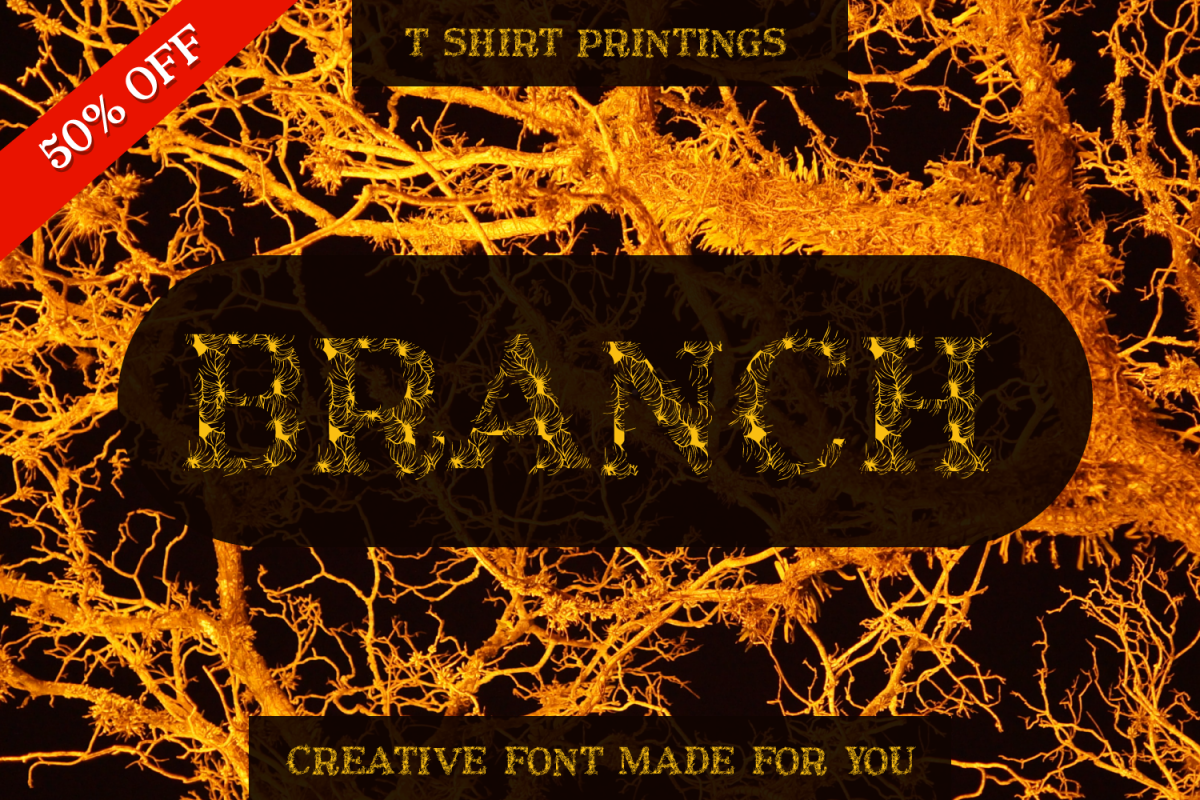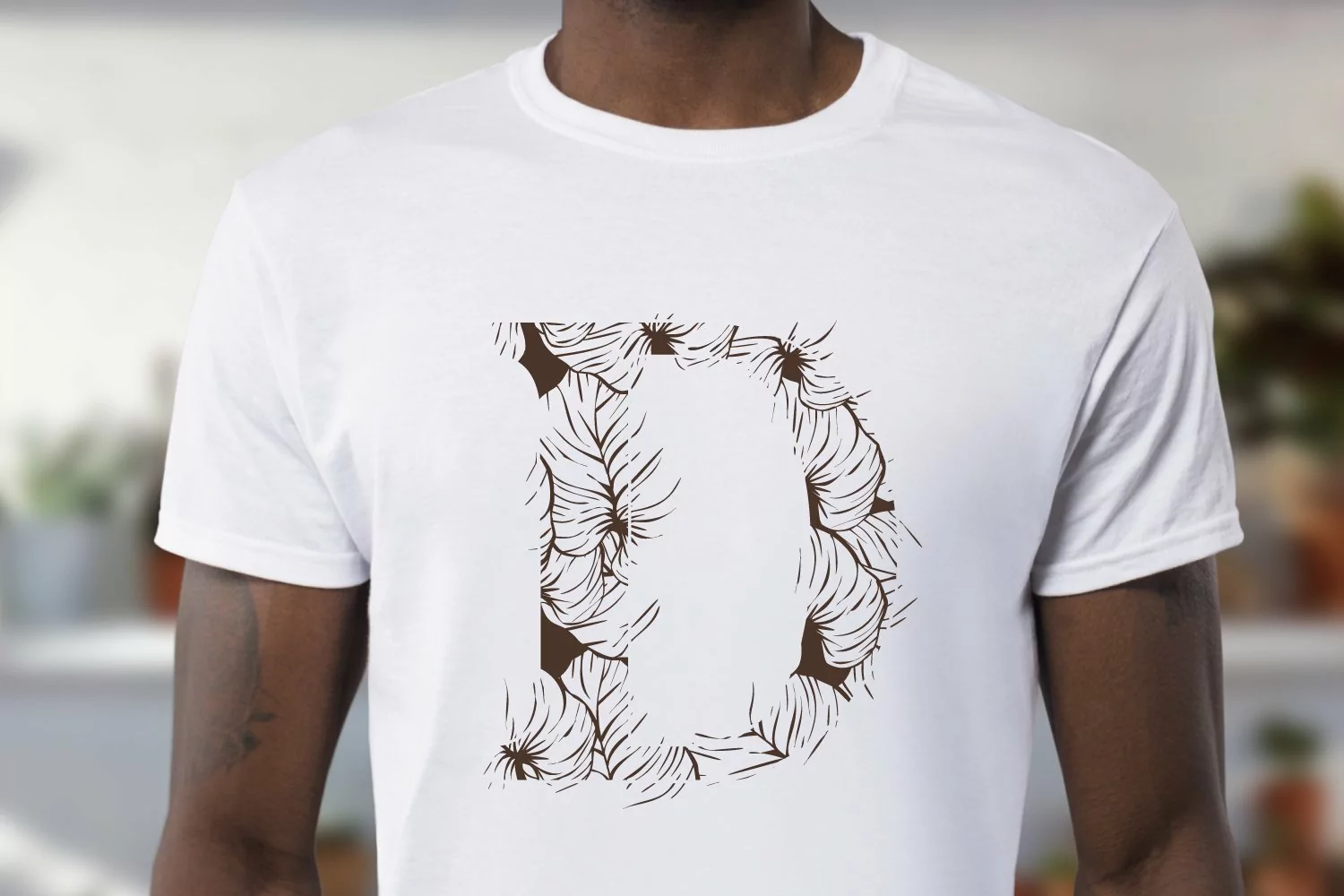
Presenting Unique Texture font that resemble Branches of Tree, Perfect for all kind of printing materials, Online and web presentation, Crafts and Paper cut font for you. This made specially for you. Get this in 50% off price.  Anchors points are minimal as much as possible for you  to easily print on different craft materials.
1- texture Layered Base
2- Unique and Creative
3- Best for all kinds of Printing Stuff.